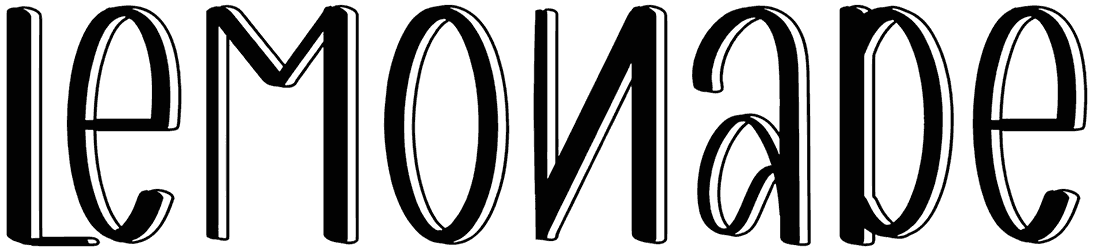
Lemonade Font
Reveal your talent by using the right font that takes your artwork to another level. To start, try Lemonade, a combination of both food fonts and summer fonts, to see how it goes, but we promise you that this font, with its funky look and two-line design, would take your work to another level.
This font comes with a combination of both uppercase and lowercase, plus numbers and punctuation marks. With Resource Boy, you save a lot of time in producing your designs.